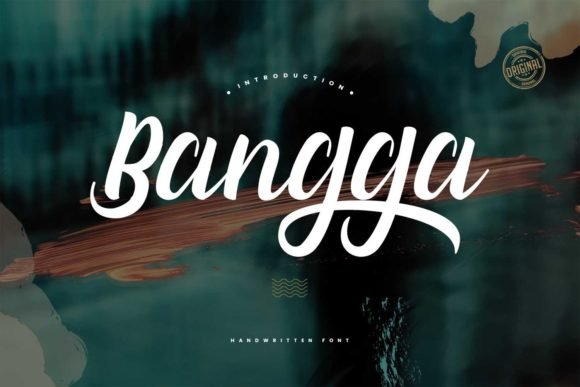
Have you ever been in a moment where you stumble upon a font that makes your design dreams come true? That’s exactly what happens when you fall in love with the Bangga Font. This stunning handwritten font is designed to flow effortlessly, making it the perfect addition to any creative project.
Bangga Font is more than just a beautiful font – it’s a versatile tool that can be used to create stunning wedding invitations, beautiful stationery art, eye-catching social media posts, and so much more. As a designer, you know the importance of having the right font to bring your ideas to life. The Bangga Font is a valuable asset to have in your design arsenal, offering endless possibilities for creativity and self-expression.
Bangga Font Key Features
- Font Family: Bangga Font is a unique, hand-designed font family with a range of weights and styles, including regular, bold, and italic.
- Character Set: Bangga Font includes a wide range of characters, including uppercase and lowercase letters, numbers, punctuation marks, and special characters.
- Size and Resolution: Designed to be highly scalable, Bangga Font can be used at various font sizes, from 8pt to 72pt, with excellent clarity and legibility at high resolutions (up to 300 DPI).
- Unique Characteristics: Bangga Font features a distinctive, hand-drawn design with intricate details and subtle texture, making it perfect for creative projects and branding.
Bangga Font Review
Overall, I was excited to dive into the Bangga Font and see what it had to offer. Here’s my honest take on this font.
- The Bangga Font has a unique and modern aesthetic that’s perfect for creative projects.
- The font is highly legible, even at smaller font sizes, making it a great choice for digital applications.
- The font comes in a variety of weights and styles, giving users a lot of flexibility in terms of design options.
- The font is highly customizable, with options for adjusting font sizes, colors, and spacing.
- The Bangga Font may not be the best choice for formal or traditional designs, as its modern aesthetic may not be suitable for all projects.
- The font may not be as versatile as some other fonts, which can limit its use in certain design contexts.
- The font’s unique aesthetic may not be to everyone’s taste, which can be a drawback for some designers.
The Bangga Font is a solid choice for designers looking for a modern and unique font. While it may have some limitations, its strengths make it a great option for creative projects and digital applications. I would recommend it to designers who are looking for a fresh and modern aesthetic.
Tips for Getting the Most Out of Bangga Font
For best results, use Bangga Font for titles and headings to add a touch of elegance and sophistication. Experiment with different font sizes and colors to create a visually appealing design. Consider combining Bangga Font with other fonts to create a unique and eye-catching design.
Bangga Font is ideal for:
- Wedding and event signage
- Any design project that requires a touch of elegance and sophistication
Alternatives to Bangga Font
Great Vibes is a modern script font that is perfect for creating a playful and youthful feel. It is ideal for use in headings, titles, and logos where a fun and energetic tone is desired.
Compared to Bangga Font, Great Vibes has a more refined and elegant look, making it suitable for a wider range of designs. Bangga Font has a more rustic and handwritten feel, making it better suited for casual and informal designs.